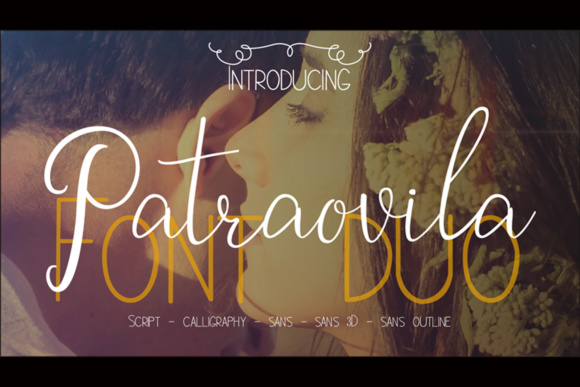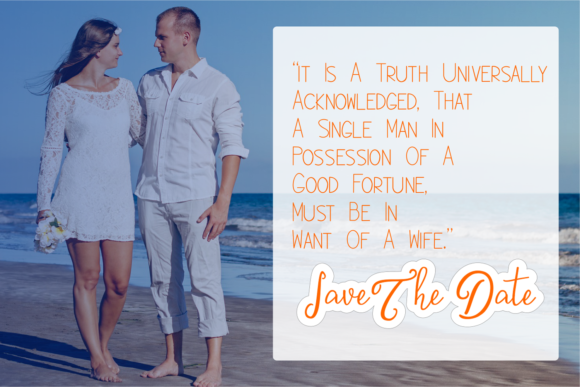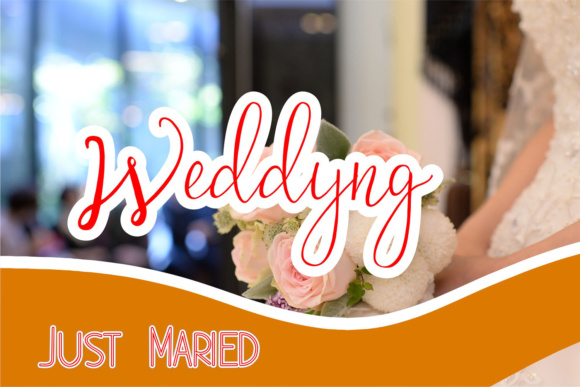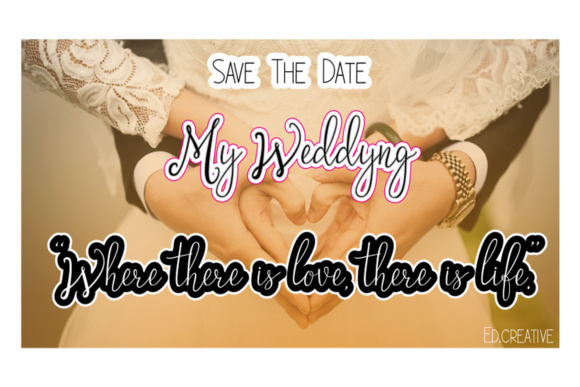
Patraovila Duo Font
About Patraovila Duo Font
Patraovila Duo is a unique, cool and modern handwritten font. It’s unique style makes it perfect for all your design projects such as: logos, signatures, labels, packaging designs, blog headlines, and much more. Patraovila Script comes in four beautiful styles which makes it perfect for many designing needs.